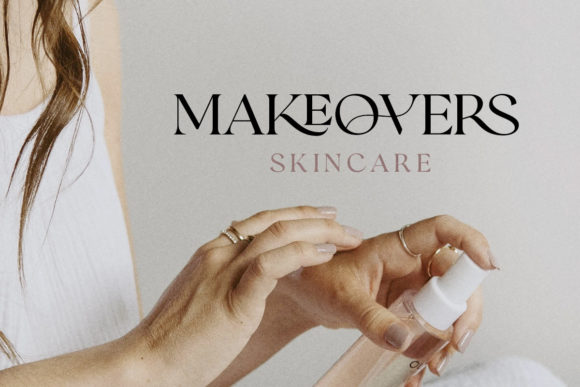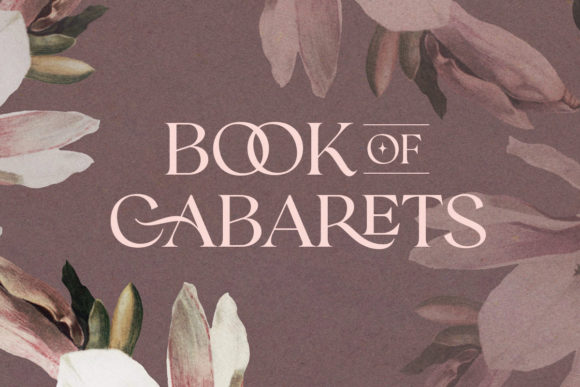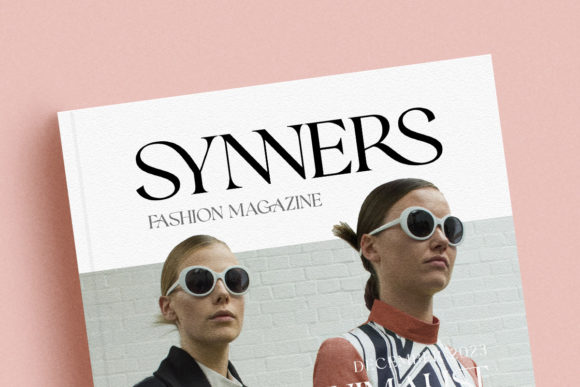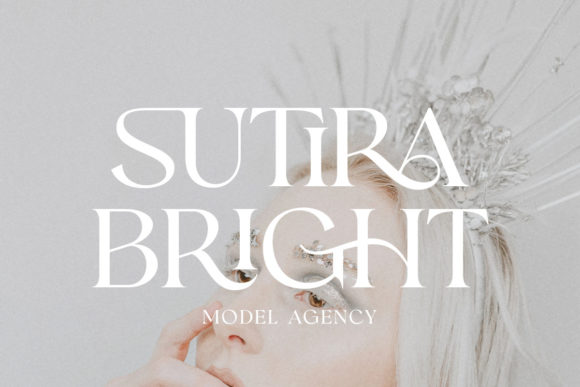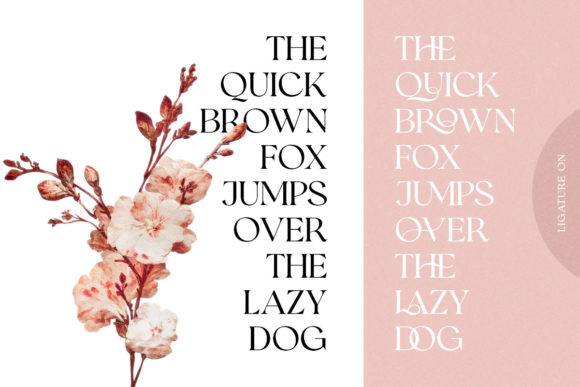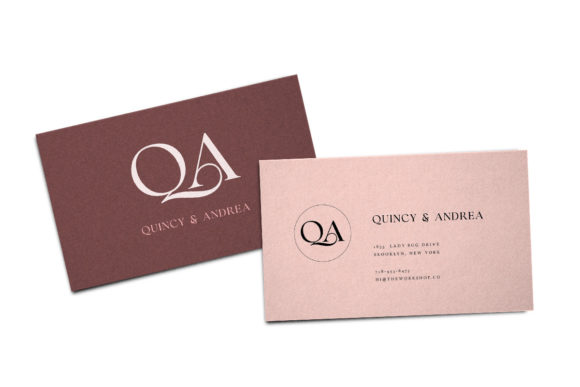
Introduction to Romans Story Font Font
Fonts play a crucial role in design, and the Romans Story Font font is a typeface that brings both character and versatility to any project. Whether you’re working on a branding project, a website, or a print design, the Romans Story Font font offers a unique style that can elevate your work.
Romans Story is a thin lettered and delicate serif font.
It looks stunning on wedding invitations, thank you cards, quotes, greeting cards, logos, business cards and every other design which needs a customized touch .
Key Features of Romans Story Font Font
Why Choose Romans Story Font Font?
The Romans Story Font font is more than just a typeface – it’s a design tool that helps you communicate your message with style and clarity. Its unique character set and versatile design make it suitable for a wide range of applications, from elegant invitations to bold headlines.
With its carefully crafted letterforms and balanced proportions, the Romans Story Font font ensures readability and visual appeal across all mediums.
What makes Romans Story Font font special?
The Romans Story Font font stands out with its unique design, exceptional readability, and versatility across various design applications.